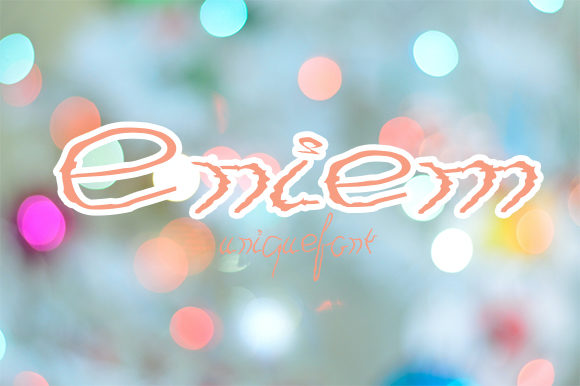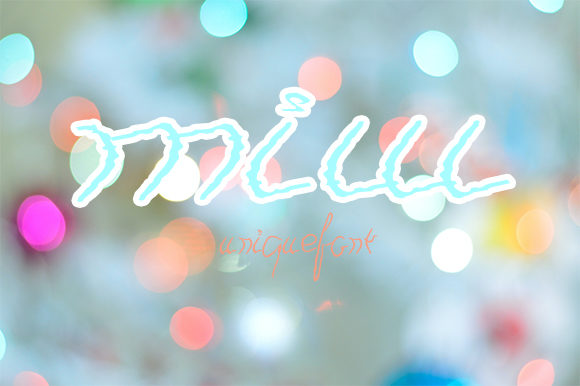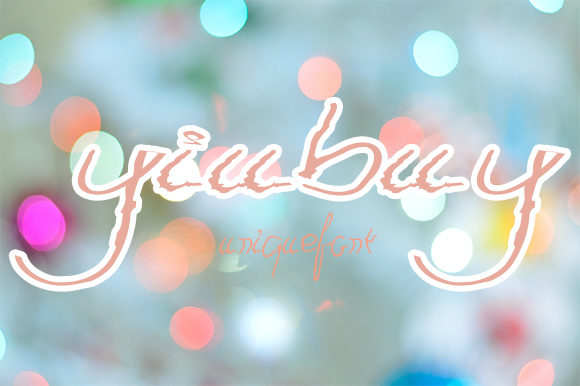
Eniem
About Eniem Font
Eniem is a cute display font. Clean and a little bit quirky, this font is the perfect fit for all of your logos, branding, social media, and crafty DIY projects.